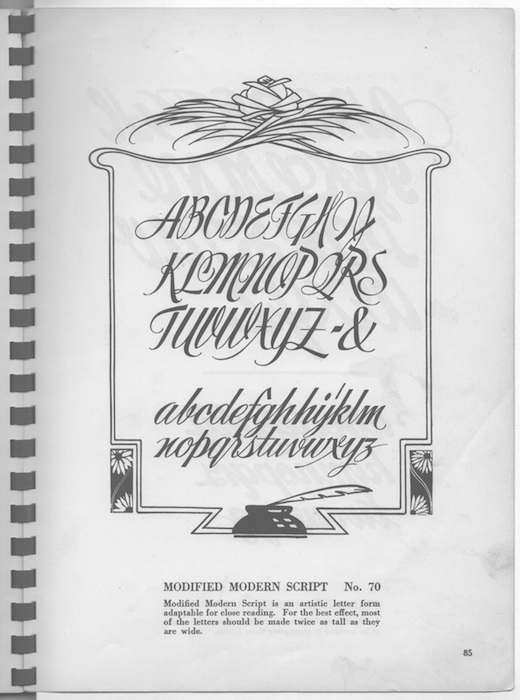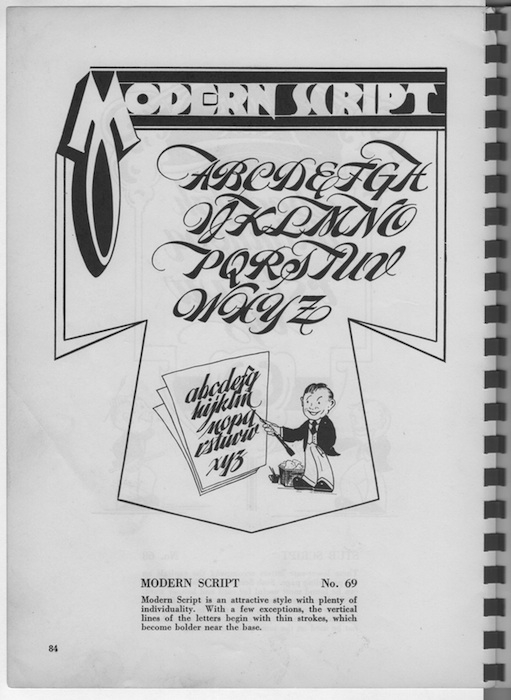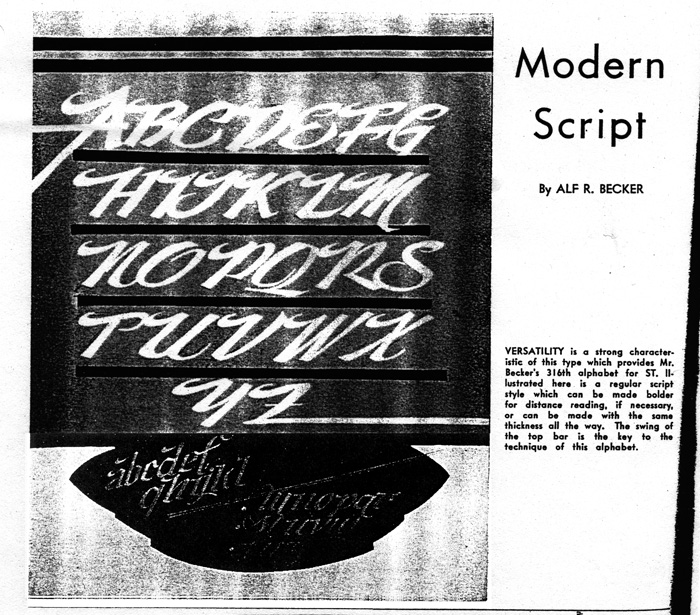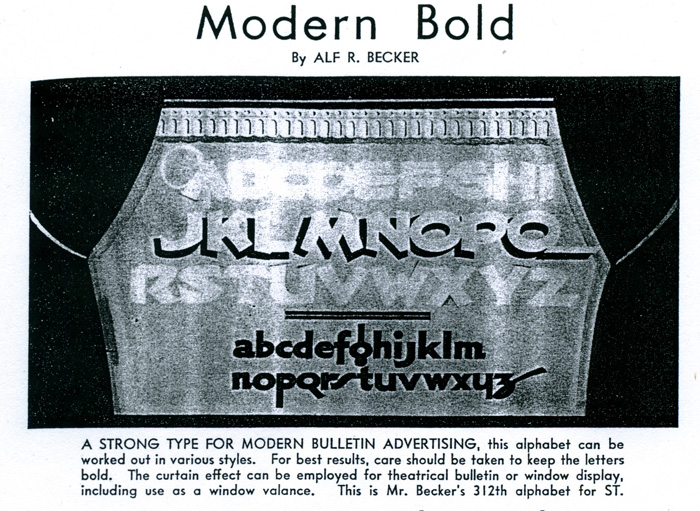
Alf Becker alphabets
Got my hands on a xerox copy of the Alf Becker alphabets from the Signs of the times, 320 done over 27 years , most of it is in usable condition but I was missing 2 pages alphabets no 312 and 316 William Pickett has passed on his scan but they are almost unreadable. Has anyone got a reasonable copy of these before I do hours of photoshop work?
I have a copy of "100 Alphabets" by Alf R Becker - it might have the ones you are looking for. Do you know the names of the alphabets?
PS: I didn't know that anyone had compiled the total 320 alphabets. Who? When? Where?
Thanks Lee they are Modern Bold and Modern script
Terry - the book has nothing called "Modern Bold". Can you make out if it is a Roman or sans-serif? He has some "Moderns" and some "bolds" in both sections.
Here is "Modern Script" - see if it looks right. I couldn't stop and also include "Modified Modern Script" - what a snazzy page layout.
Lee, that looks like a fantastic book!
Terry, I think these are the scans you're looking for but mine are probably just as bad as yours.
I got mine from Joe Broxterman and they're likely part of the same collection of copies from ST.
- ARB 312 - Modern Bold
- ARB 316 - Modern Script
Thanks Dan they are the ones and are the best I have seen , certainly good enough to make a hand lettered copy of
Hi Dale, I think you might struggle to find a copy , as I am aware ST only printed 3000
copies , although it sold out they did not re print, a few lucky people have it but most have a xerox copy. The copy I have is the 320 alphabets taken from ST each month from 1932 to 1957
I have three of the signs of the times 100 alphabets and the xerox copy that Billy Picket gave me
when we were on Mars.